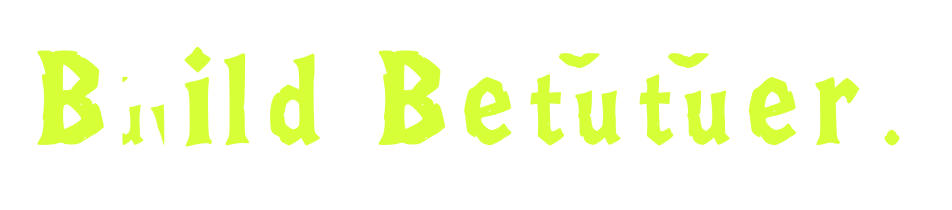
Gribblewood
Carefully handcraftedby real goblins
Hinted & optimizedfor screens
Supports Latin BasicCore A-Z coverage
OpenType featureskerning, ligatures & more
About Gribblewood
Rough woodcut serif with heavy carved texture